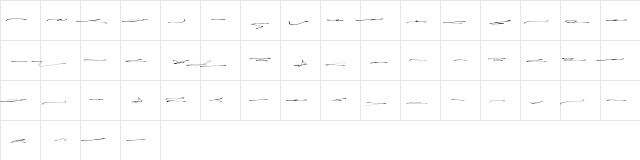
Allington Swash Regular
| Foundry | Vasgaz Creative |
| Designer | Randi Ilhamsyah // Vasgaz Creative |
Design Context for Allington Swash Typeface
Allington Swash flows with the natural rhythm of handwritten lettering, making it ideal for designs that call for warmth and personal expression.